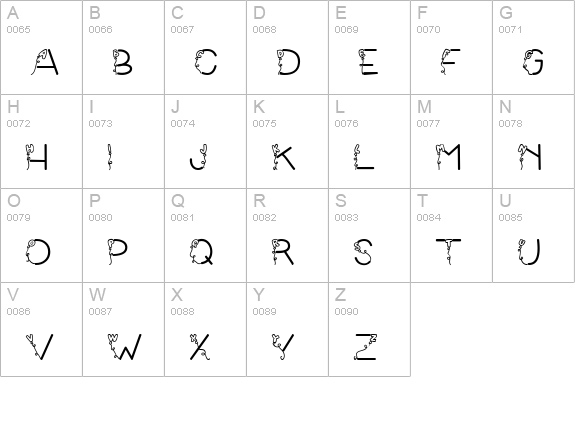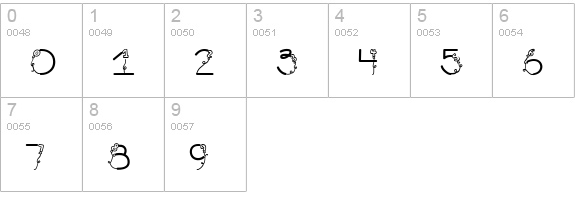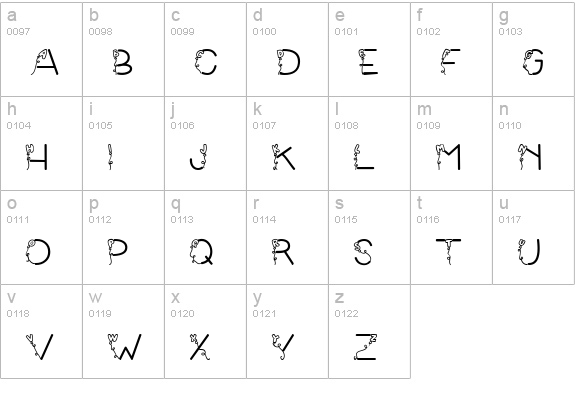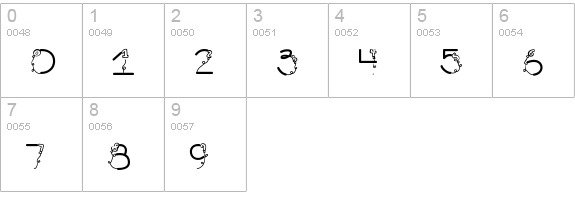
CK Balloons Font Details
Introducing CK Balloons font, a whimsical and playful typeface that will bring a touch of fun to your designs. This font features rounded letters with a balloon-like feel, perfect for adding a cheerful and lighthearted vibe to any project. Whether you're creating invitations, greeting cards, or party decorations, CK Balloons font is sure to make your text pop! The best part? CK Balloons font is completely free to download at FontsMarket.com. So go ahead and add a splash of creativity to your designs with this charming and unique typeface. Let your imagination soar with CK Balloons font today!